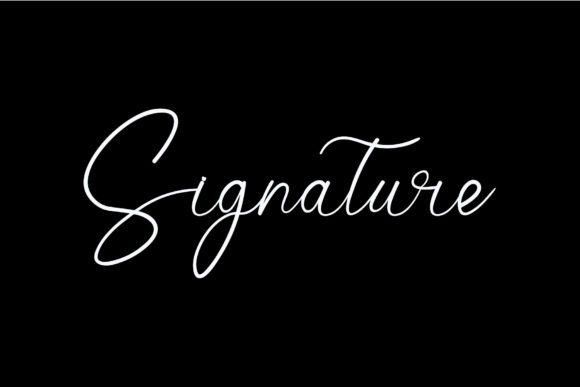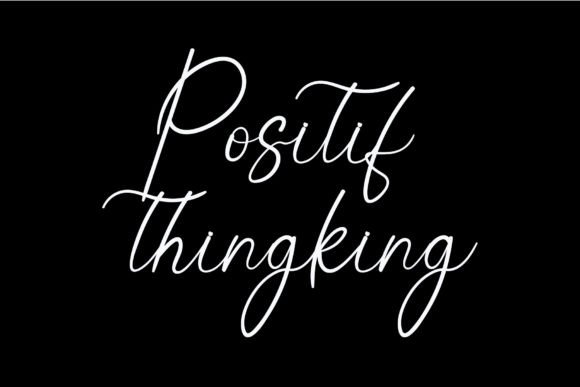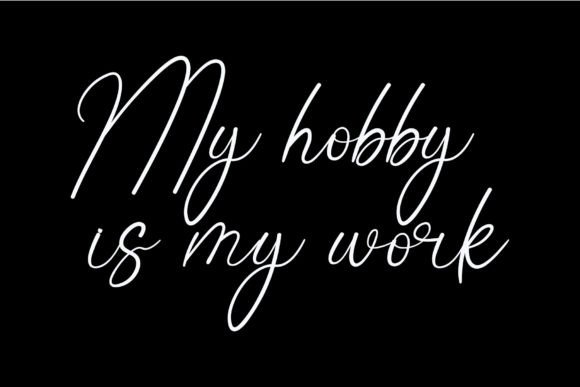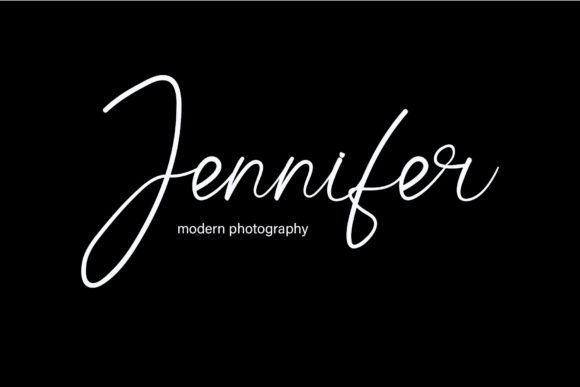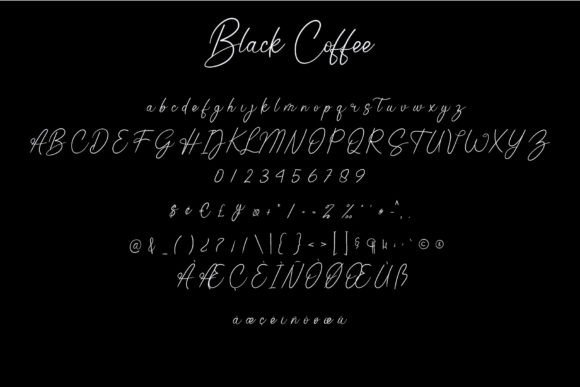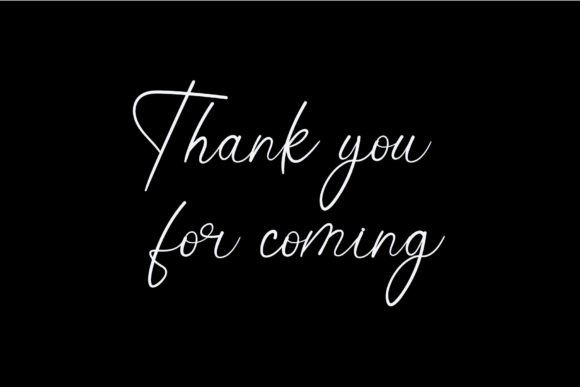
Discover the Elegance of Black Coffee Font: Elevate Your Designs with Timeless Style
Are you on the hunt for a font that exudes elegance and sophistication? Look no further than the Black Coffee Font. This stunning handwritten font is characterized by its neat and beautiful design, complete with an elegant touch that’s sure to capture your heart. In this article, we’ll dive into the world of Black Coffee Font, exploring its unique features, and how you can use it to create spectacular designs that leave a lasting impression.
The Beauty of Black Coffee Font
Black Coffee Font is a masterpiece of typographic design, boasting an incredibly distinct and timeless style that’s perfect for a wide range of projects. Whether you’re a designer, craftsperson, or simply someone who appreciates the art of beautiful writing, this font is sure to fall into your heart. Its elegant touch adds a level of sophistication to any design, making it ideal for projects that demand a high level of refinement.
Key Features of Black Coffee Font
• Handwritten with love: Black Coffee Font is a carefully crafted handwritten font, imbuing each letter with a sense of personality and charm.
• Elegant touch: The font’s elegant design makes it perfect for projects that require a high level of sophistication, such as luxury branding, wedding invitations, and high-end product packaging.
• Timeless style: Unlike trendy fonts that quickly go out of style, Black Coffee Font boasts a timeless design that will remain relevant for years to come.
• Distinctive character: The font’s unique character set ensures that your designs stand out from the crowd, making it perfect for projects that require a level of individuality.
Uses for Black Coffee Font
Black Coffee Font is an incredibly versatile font that can be used for a wide range of projects, including:
• Branding and logos: Create a lasting impression with a custom logo that showcases the elegance of Black Coffee Font.
• Wedding invitations and stationery: Add a touch of sophistication to your wedding stationery with this beautiful font.
• Product packaging: Elevate your product packaging with a font that exudes luxury and refinement.
• Signage and displays: Create eye-catching signage and displays that showcase the unique character of Black Coffee Font.
Tips for Using Black Coffee Font
In conclusion, Black Coffee Font is a stunning handwritten font that offers a unique blend of elegance and sophistication. Its timeless style and distinctive character make it perfect for a wide range of projects, from branding and logos to wedding invitations and product packaging. Whether you’re a designer, craftsperson, or simply someone who appreciates beautiful typography, Black Coffee Font is sure to capture your heart. So why wait? Fall in love with Black Coffee Font today and elevate your designs to new heights!